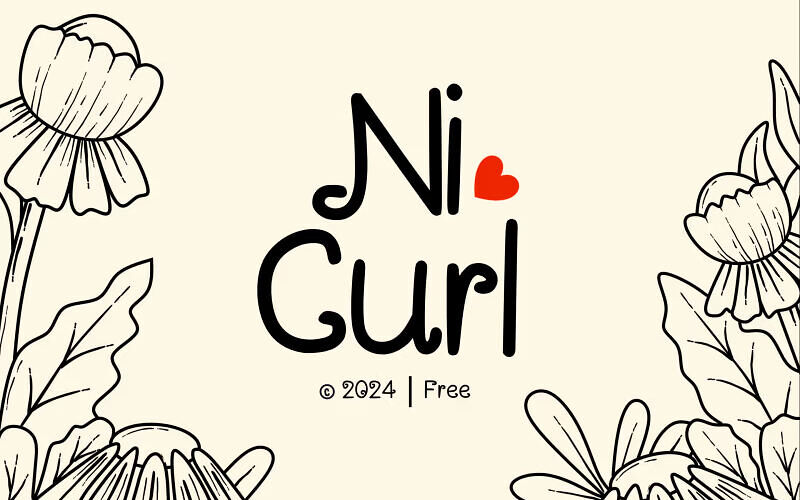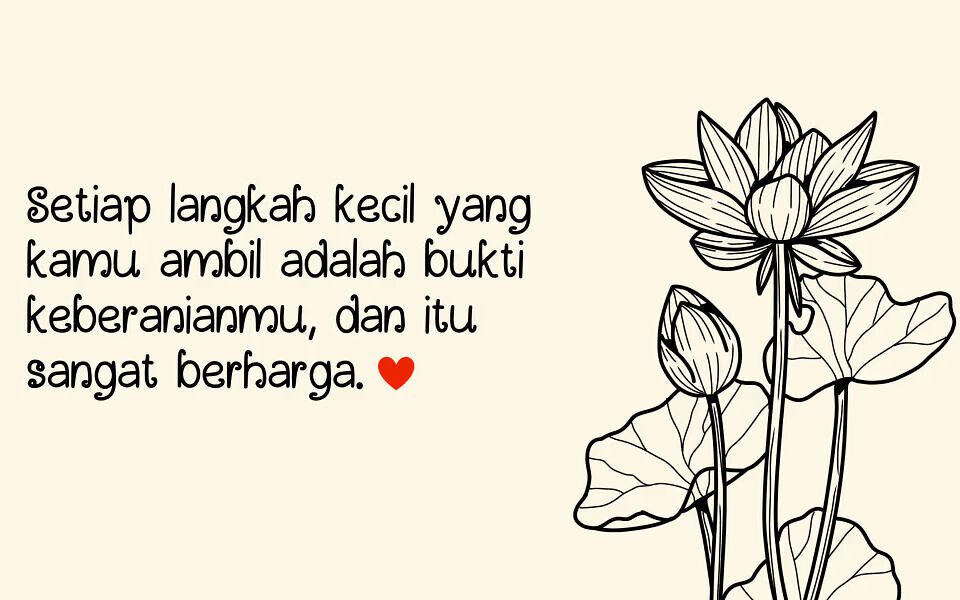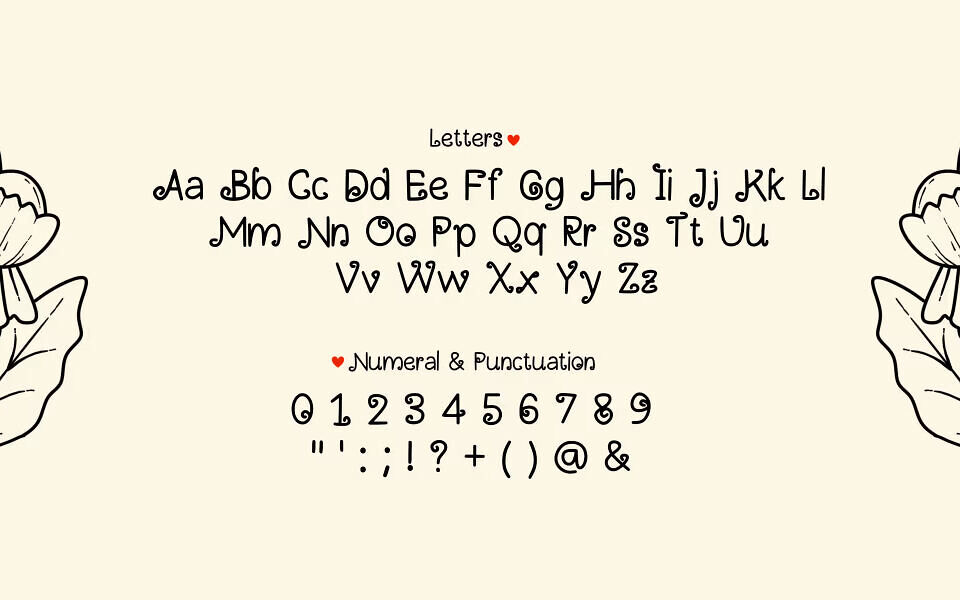
Ni Curl is a unique font designed to add a fun and playful touch to every word. With smooth curves and sweet, flowing lines, this font exudes a feminine and whimsical vibe, making it perfect for girly and cheerful design projects.
Each letter in Ni Curl conveys a sense of joy and warmth, making it an ideal choice for branding, invitations, or product designs that aim to radiate a fun and charming personality.